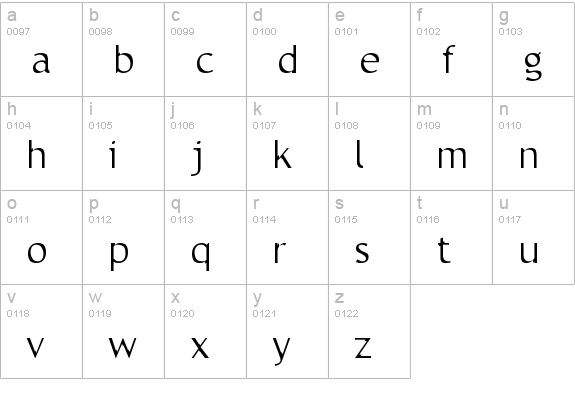
Trebble Font Details
Trebble font is a modern and versatile typeface that is sure to captivate designers and typography enthusiasts alike. With its sleek and clean lines, this font exudes a sense of sophistication and elegance. It strikes the perfect balance between classic and contemporary, making it suitable for a wide range of design projects. What sets Trebble font apart is not just its aesthetics, but also its accessibility. This font is available for free, allowing designers to effortlessly incorporate it into their creative endeavors without any financial constraints. Whether you are working on a personal project or a commercial venture, Trebble font is the ideal choice to add a touch of professionalism and uniqueness. Downloading Trebble font is a breeze, as it is freely available at FontsMarket.com. This reputable online resource provides a vast collection of high-quality fonts, and Trebble font is no exception. By visiting FontsMarket.com, you can easily access and download this font, ensuring that your design projects will always have that extra edge. The versatility of Trebble font knows no bounds. Its clean and crisp design ensures legibility in both large and small sizes, making it suitable for various applications such as branding, logo design, headlines, packaging, and much more. This font effortlessly adapts to any design context, allowing for seamless integration into your creative vision. Trebble font is a testament to the power of free resources in the design world. Its availability at FontsMarket.com makes it accessible to designers of all skill levels, regardless of budget constraints. So why wait? Unlock the potential of your designs with Trebble font today and experience the beauty of a freely available typeface that elevates your creative projects to new heights.